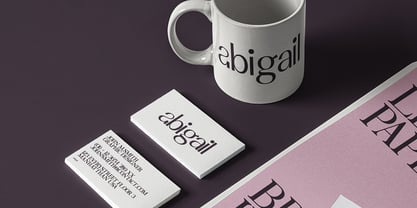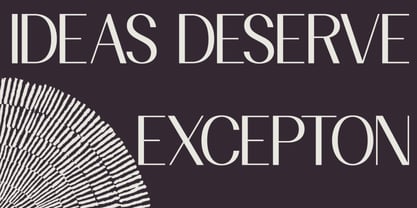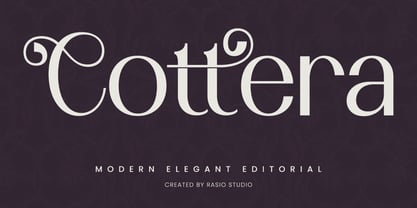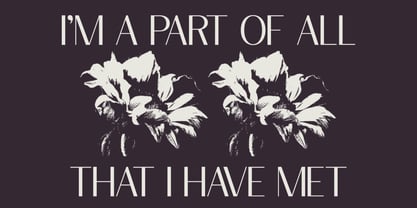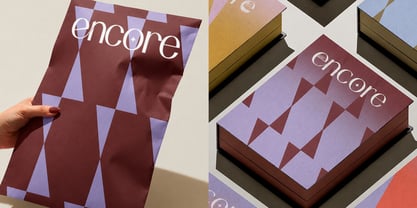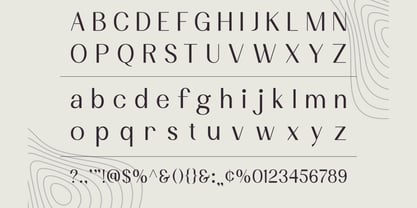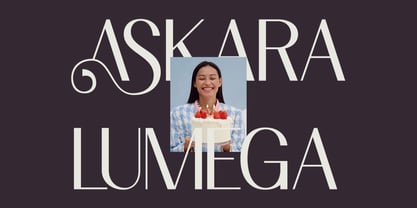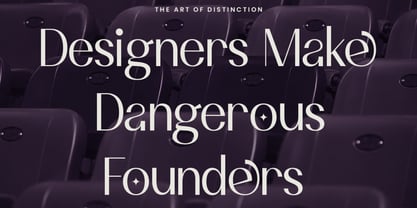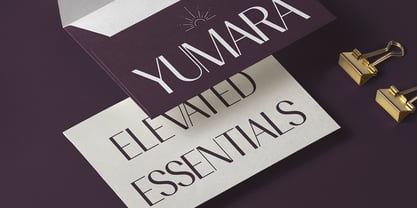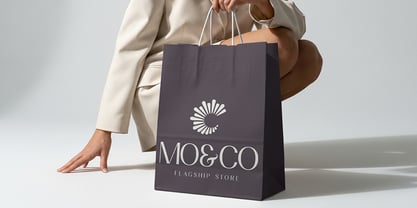
Cottera
by Rasio Studio
Cottera is a sophisticated editorial typeface defined by graceful curves, refined stroke contrast, and distinctive decorative letterforms. Its elegant serif construction combines classic typographic influence with a contemporary visual approach, creating a balanced personality that feels luxurious, artistic, and expressive.
Relevance and Use Case is perfect for luxury branding, fashion editorials, beauty identities, magazine headlines, premium packaging, wedding stationery, creative advertising, logo design, social media campaigns, and sophisticated visual identities. Its graceful serif forms and decorative character help designers build refined typography with a strong editorial and high-end visual presence.
Designers: Fajar Indra
Foundry: Rasio Studio